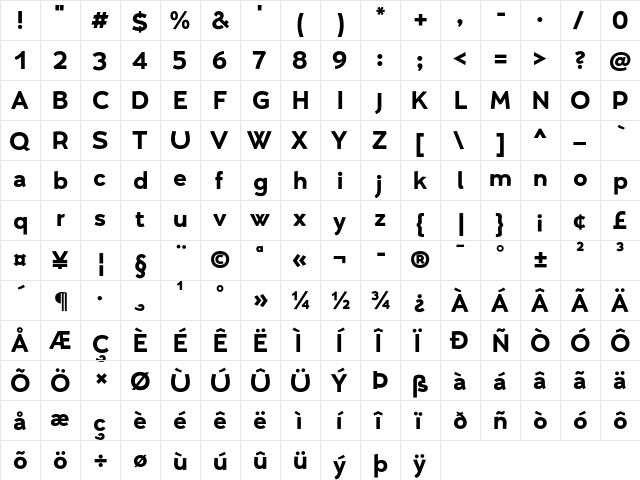
Umba Sans Bold
| Foundry | Anita Juergeleit |
| Designer | Anita Juergeleit |
Design Context for Umba Sans Typeface
Umba Sans offers clean, dependable letterforms without strong stylistic allegiance, making it a practical choice for designers who need flexibility. The heavy weight commands attention and anchors typographic hierarchies.